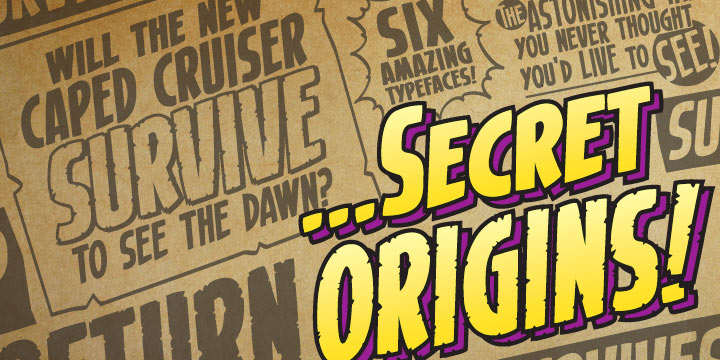
Secret Origins BB
Font Family by Blambot
Secret Origins is a punchy comic book title font straight outta the 60s.
Comes with Regular, Italic, Condensed, Condensed Italic, Rough and Rough Italic.
It's got tons of European characters and if you buy the OpenType version and type !+ or ?+ you get shorter ! and ? that match the height of the lowercase characters!